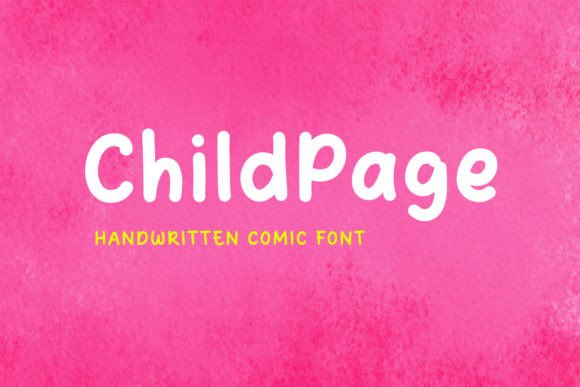
Introducing Childpage Font: The Ultimate Sans Serif Font for Middle School
In the realm of education, where creativity meets knowledge, Childpage Font emerges as a beacon of inspiration, a font meticulously crafted to ignite the imagination of young learners and educators alike. Its sans serif design exudes a captivating simplicity, allowing the written word to shine with clarity and charm, while its playful handwritten style adds a touch of whimsy and delight.
Childpage Font is not merely a collection of letters; it's a gateway to a world of limitless expression. Its versatility knows no bounds, effortlessly adapting to a myriad of academic and creative pursuits. Whether you're crafting captivating comic books that transport readers to fantastical realms, designing eye-catching posters that announce upcoming school events, or creating engaging flyers that spark curiosity and excitement, Childpage Font is your trusted companion, transforming ordinary words into extraordinary works of art.
Imagine book titles that leap off the page, capturing the imagination with their playful curves and childlike innocence. Envision advertisements that burst with vibrancy, their messages conveyed with a touch of whimsy that resonates with young hearts and minds. Picture social media content that captivates and engages, its words dancing across the screen with a unique charm that sets it apart from the mundane. Childpage Font breathes life into your creations, turning them into captivating expressions that leave a lasting impression.
Beyond its aesthetic appeal, Childpage Font is a font of practicality, a tool designed to enhance readability and comprehension. Its carefully spaced characters and generous letterforms ensure effortless reading, reducing eye strain and fostering a love for learning. Whether it's a school textbook filled with knowledge or a classroom presentation teeming with information, Childpage Font ensures that every word is conveyed with clarity and precision, empowering students to absorb knowledge like never before.
With Childpage Font, you'll discover a font that transcends the boundaries of ordinary typefaces, becoming an integral part of your educational journey. Its versatility, charm, and readability make it an indispensable tool for teachers, students, and creative professionals alike. Embrace the power of Childpage Font and watch as your words take on a life of their own, inspiring, engaging, and captivating your audience with every stroke.